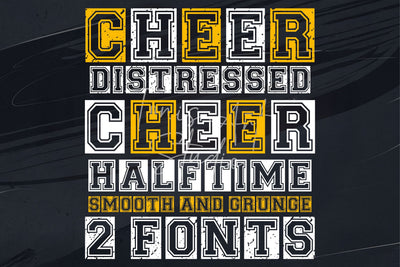
Cheer Distressed & Halftime Font | Varsity Sports Font
The Cheer Distressed & Cheer Halftime Font is a bold and dynamic sports font bundle designed for cheer, football, and varsity designs. Featuring stacked varsity styles in grunge and smooth versions, this set is ideal for game day graphics, high school spirit wear, and sports branding.
The distressed varsity font has a rough, energetic texture for a rugged athletic feel, while the smooth varsity font delivers a clean, classic look. Whether you're working on cheerleader merch, team banners, pep rally posters, or sports apparel, this font combination ensures your designs stand out with power and confidence.
✔ Cheer Distressed Font – Grunge varsity display typeface
✔ Cheer Halftime Font – Smooth varsity block font
✔ Perfect for jerseys, team banners, and sports logos